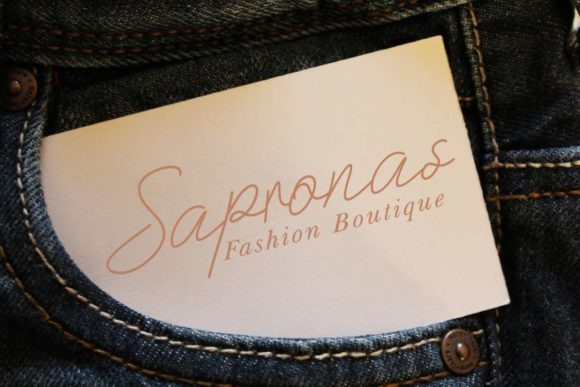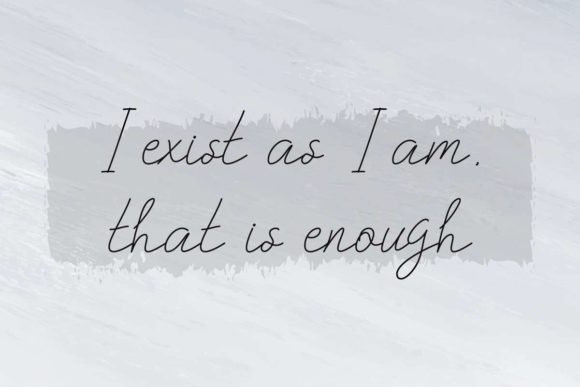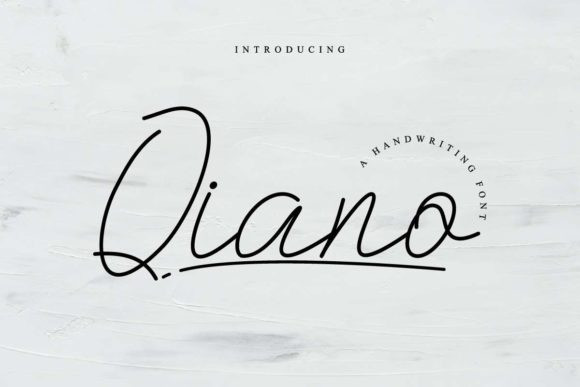
Qianno Handwritten Font
Qianno is a sweet, soft hand-lettered signature script. The playful rounded characters make it the perfect font for creating stunning DIY projects. Qianno comes packed with gorgeous letters, that will allow you to add a decorative touch within seconds. Get inspired by its authentic feel and use it to create gorgeous wedding invitations, beautiful stationary art, eye-catching social media posts, and cute greeting cards.